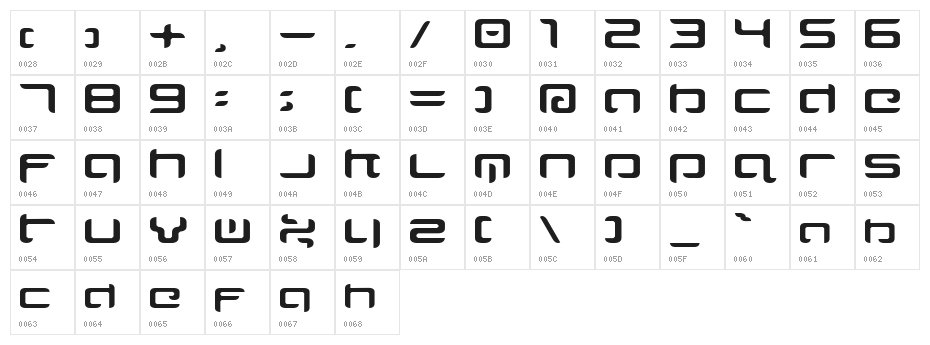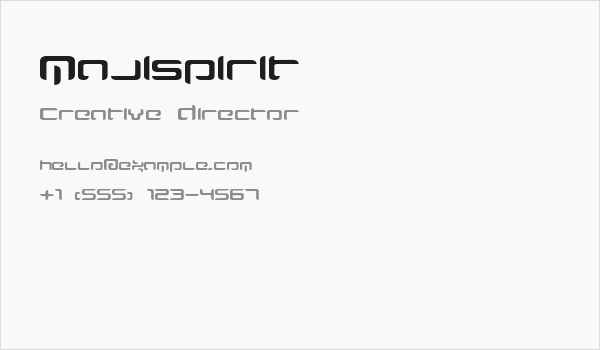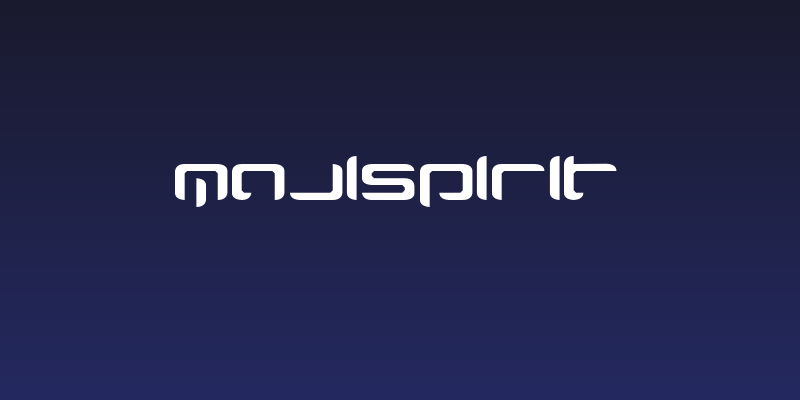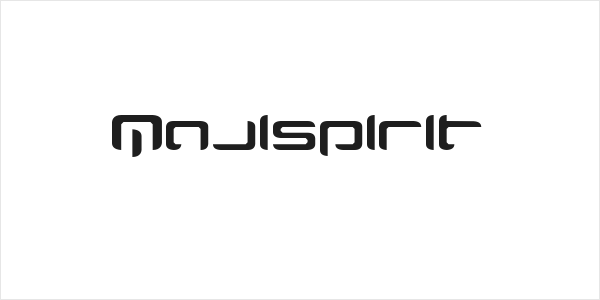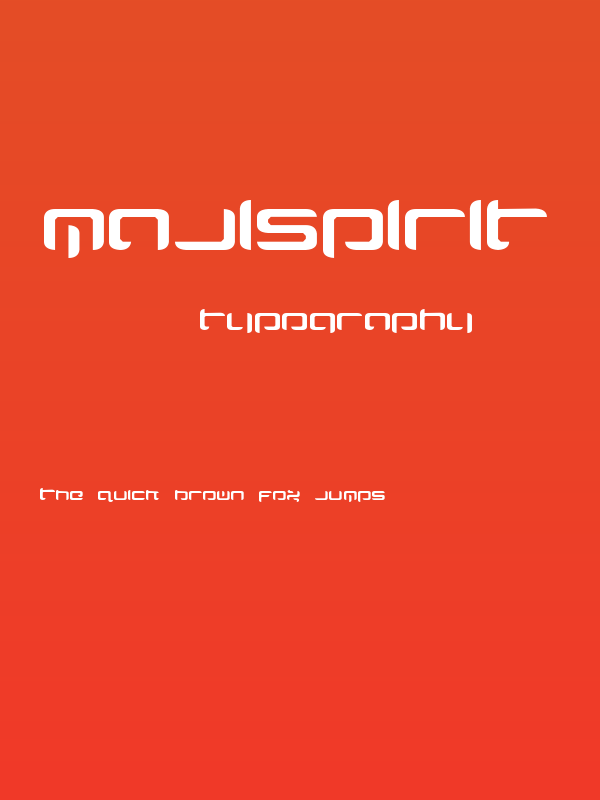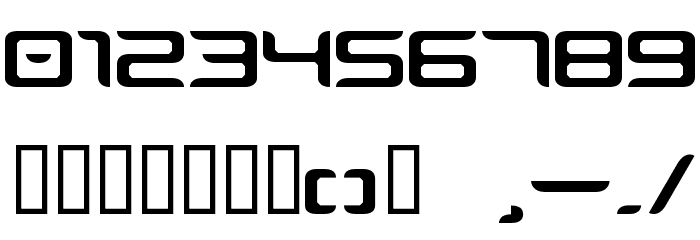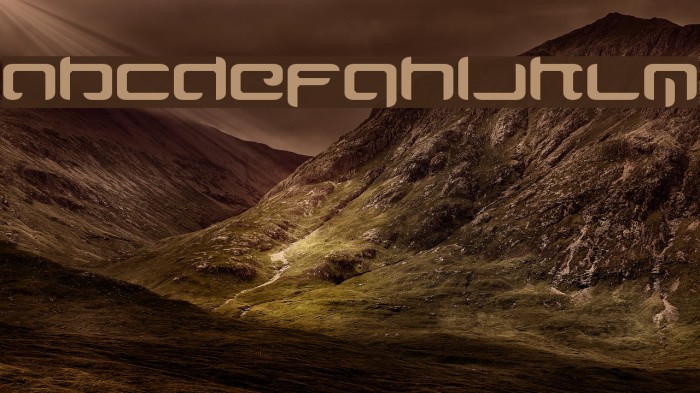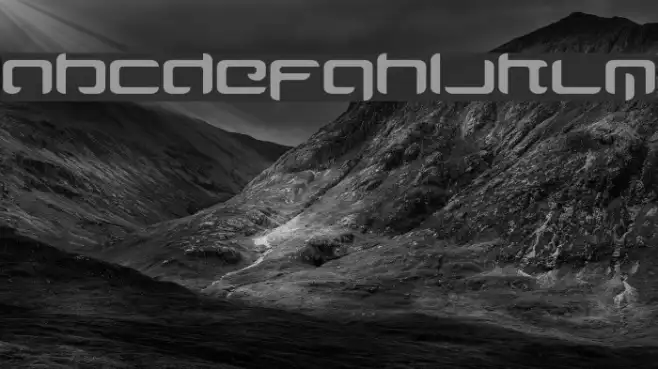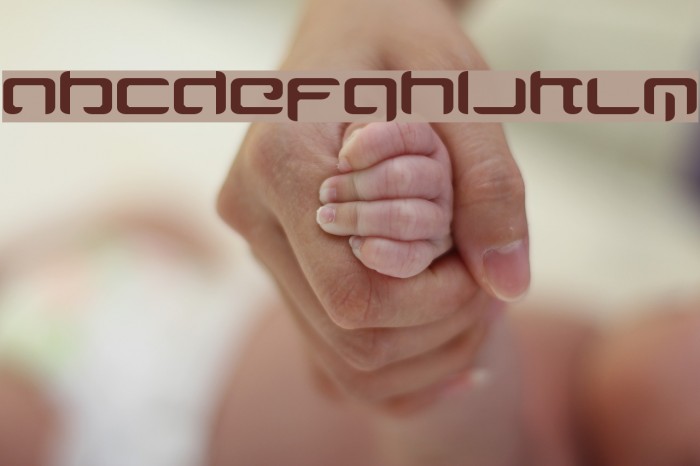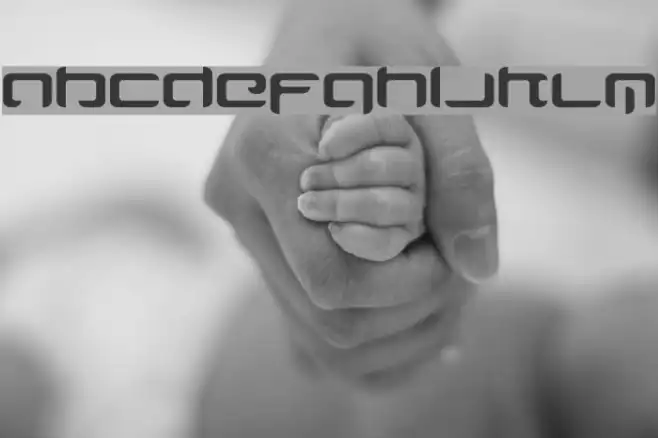
Majispirit Font
Majispirit Description
This font features a futuristic and geometric design, characterized by its rounded edges and uniform stroke width. The letters are crafted with a distinct modular style, giving it a sleek and modern appearance. The uppercase and lowercase letters share a consistent design language, with subtle variations in form. Numbers and special characters are designed to match the overall aesthetic, maintaining the same geometric and rounded qualities. The font's unique style makes it suitable for projects that require a modern and tech-oriented look.
| Use Case | Logos, Headlines, Posters |
| Proposed Projects | Ideal for tech branding, sci-fi themed designs, video game interfaces, and modern advertising. |